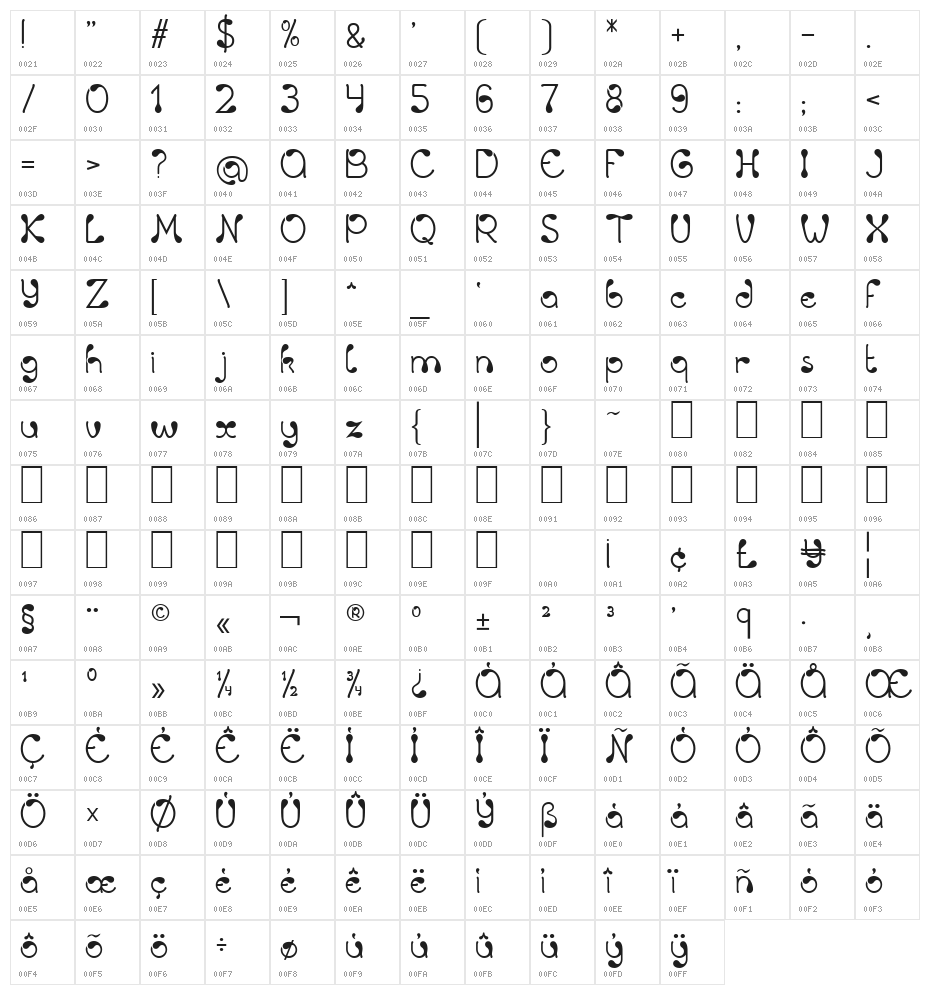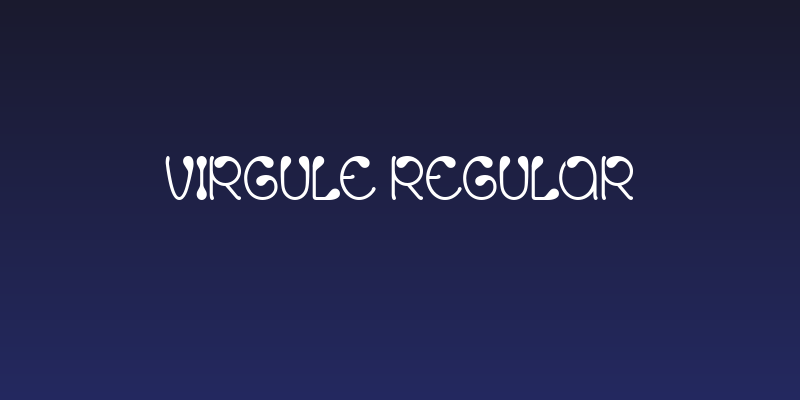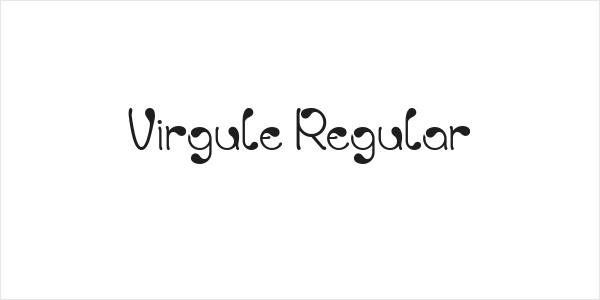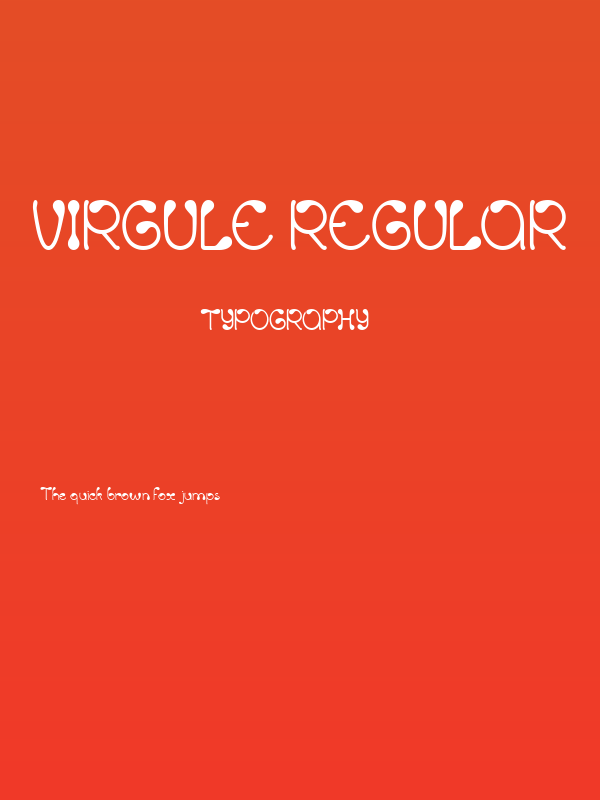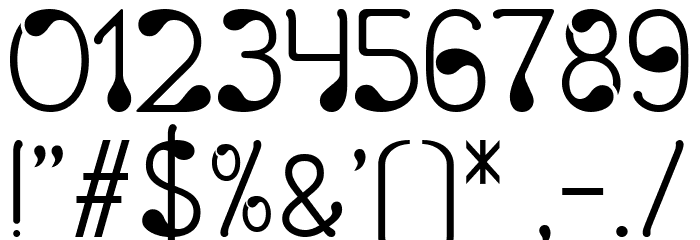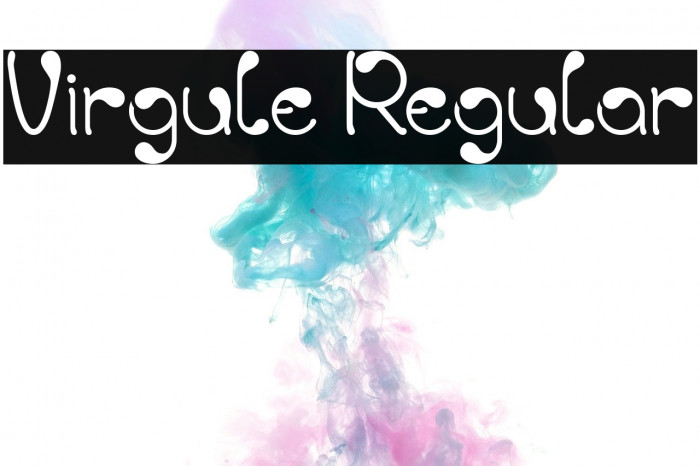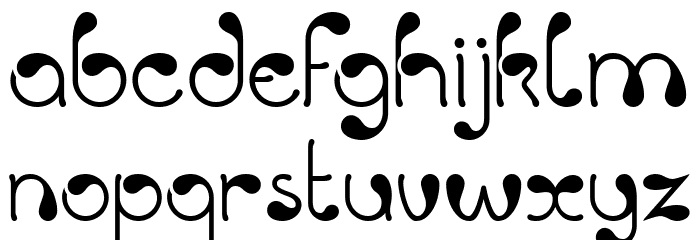
Virgule Regular Font
Virgule Regular Description
This font features a unique and playful design with rounded, bulbous terminals and a flowing, organic structure. The characters exhibit a consistent stroke width, creating a harmonious and cohesive appearance. The uppercase and lowercase letters maintain a similar style, with the lowercase having a slightly more whimsical touch. The numerals are bold and easily readable, while the special characters complement the overall aesthetic. This font's distinctiveness makes it stand out, offering a modern yet quirky vibe.